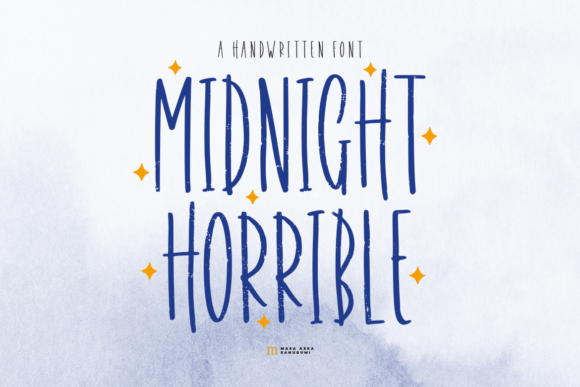
Witness the birth of Midnight Horrible, a script font family emerging from the creative depths of Masa Aska Sanurumi. This playful, handwritten font sparks delight with its unique charm, unfolding a world of possibilities for your creative endeavors.
Step into the world of Midnight Horrible, where elegance and character intertwine seamlessly. Each letter dances across the page with a graceful fluidity, capturing the essence of handwritten artistry. It's a font that captivates, leaving an imprint on your designs that's both unforgettable and enchanting.
Embrace the versatility of Midnight Horrible, a font that adapts effortlessly to a diverse range of creative projects. Whether you're crafting elegant wedding invitations, captivating social media posts, or designing eye-catching logos, Midnight Horrible rises to the occasion, adding a touch of sophistication and charm to every creation.
Unleash your creativity with Midnight Horrible, the perfect font for those seeking a blend of playfulness and elegance. Its handwritten style lends a personal touch to your designs, evoking a sense of warmth and authenticity. Let your imagination soar as you explore the infinite possibilities that await you with Midnight Horrible.
Midnight Horrible, a font that ignites your passion for design. Its whimsical nature sparks joy, while its refined aesthetic adds a touch of elegance to any project. It's more than just a font; it's a gateway to a world where creativity flourishes and ideas take flight.